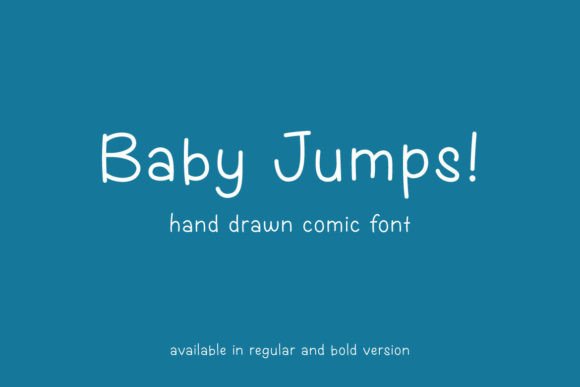
Dive into the whimsical world of Baby Jumps, an enchanting script font that sparks imagination and adds a touch of playful charm to your creations. Inspired by the boundless energy of childhood, Baby Jumps captures the essence of youthful exuberance and invites you to embrace your inner child.
With its distinctively handmade comic style, Baby Jumps makes a striking statement, captivating your audience and leaving a lasting impression. This font family is a true gem for designers, illustrators, and creative professionals alike. It is the perfect choice for adding a playful touch to children's books, comic strips, kindergarten materials, toy packaging, and movie titles.
But Baby Jumps's versatility doesn't stop there. Its unique character also shines in flyers, posters, book covers, headlines, logos, magazines, banners, and even large-scale artwork. Imagine the possibilities and let your creativity soar.